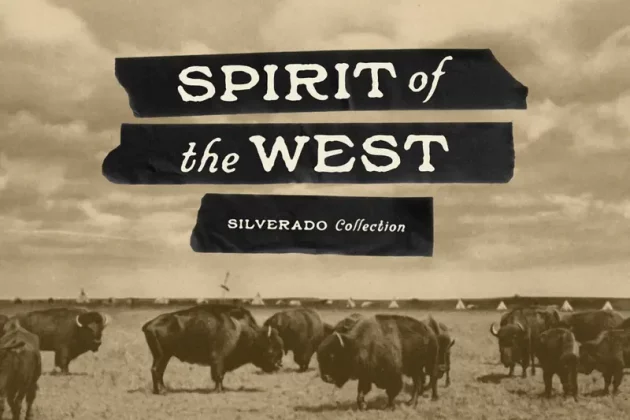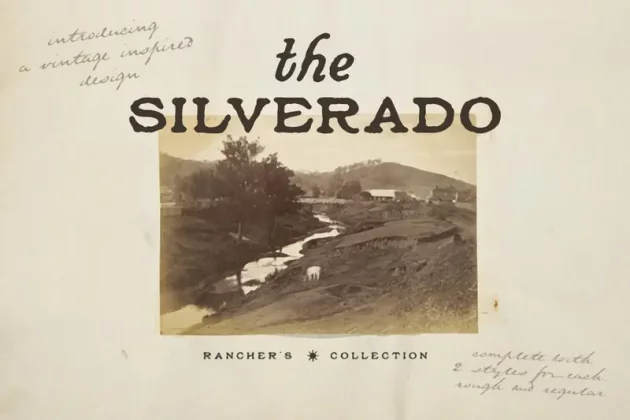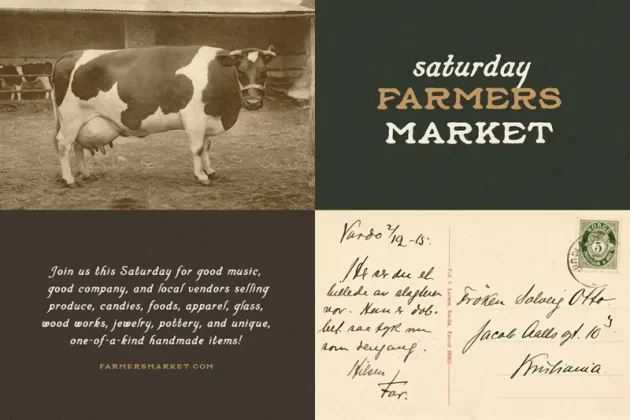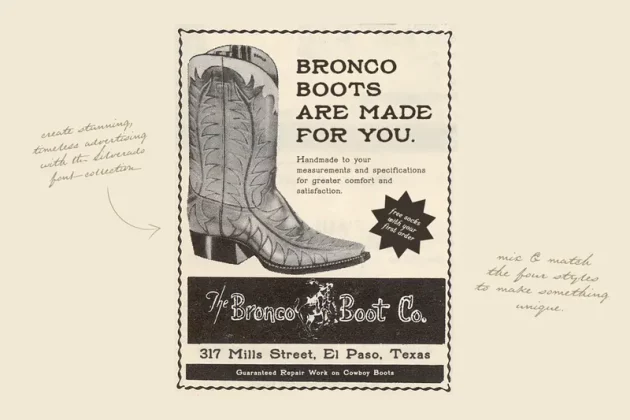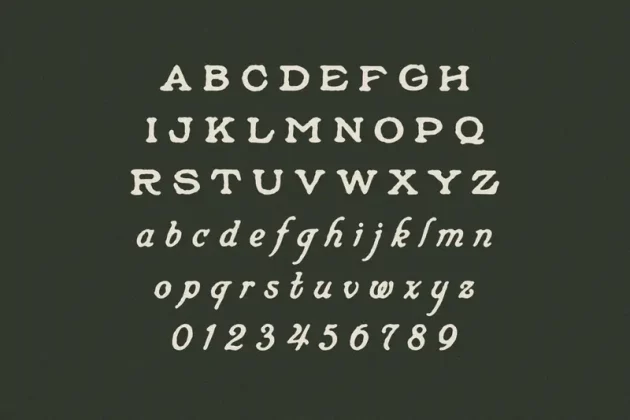
About Silverado Font
SILVERADO – The ultimate Western vintage font collection, complete with 4 styles… Regular, Rough, Script, and Rough Script. Handcrafted by Bruised Goods.
USE THESE FONTS FOR: ads, album covers, apparel, cards, flyers, invitations, logos, menus, merchandise, packaging, signage, web, and more.